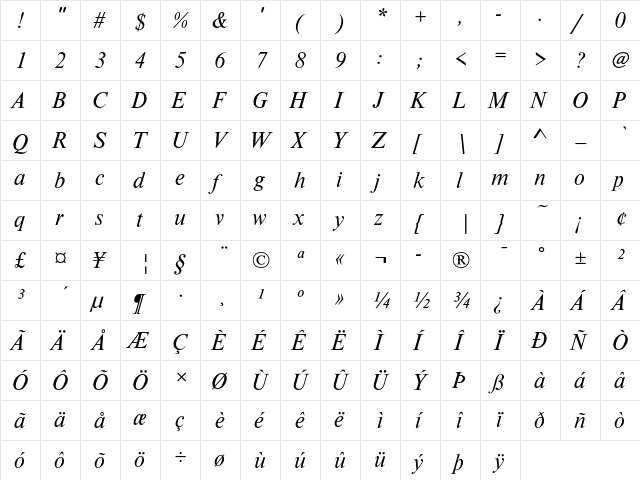
Nimbus Roman D Regular Italic
Design Context for Nimbus Roman D Typeface
Nimbus Roman D is a composed and adaptable typeface that performs quietly and consistently across a wide range of design contexts. Its italic angle brings a sense of urgency and motion to the letterforms.
Pro Tip: Use Nimbus Roman D for emphasis, pull quotes, and subheadings where its slanted energy can add rhythm to the layout.